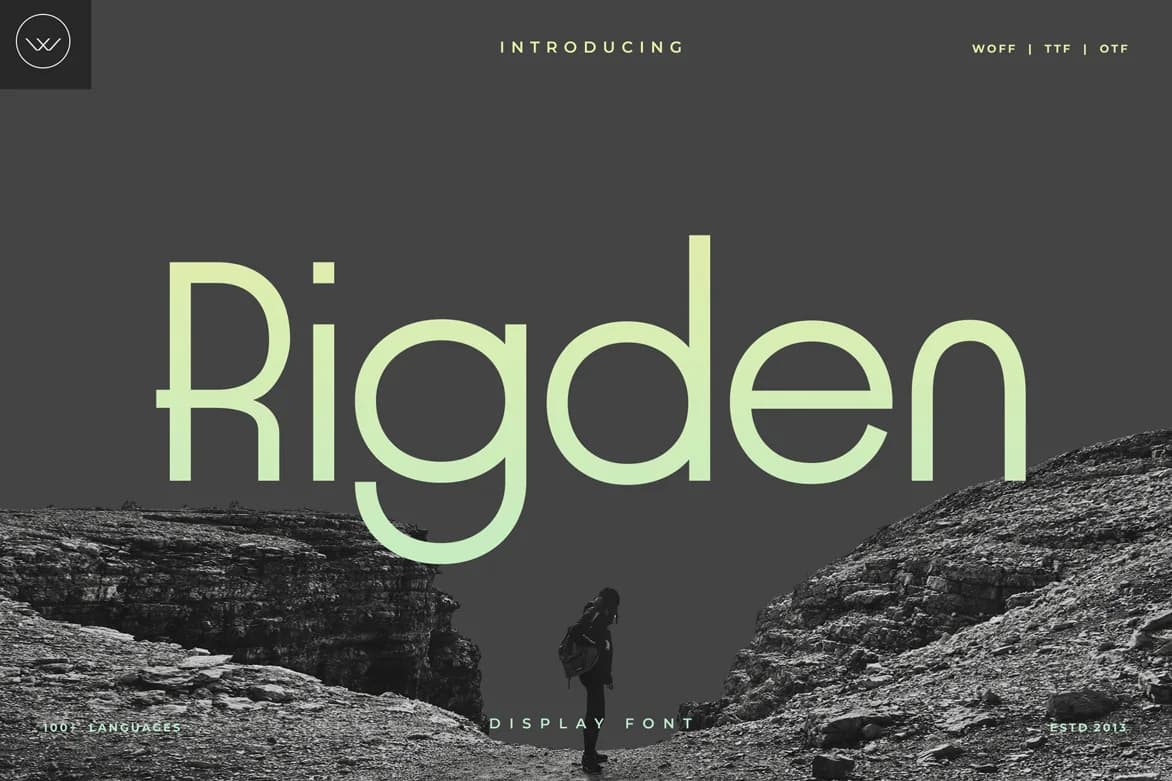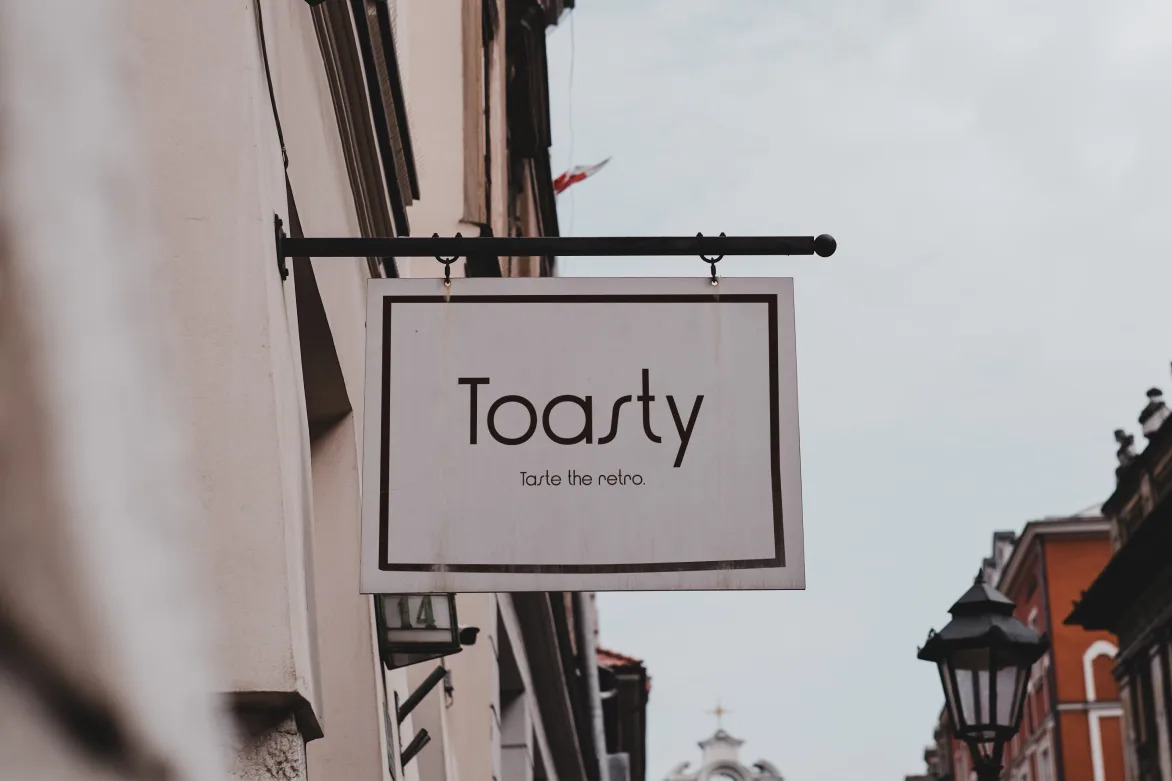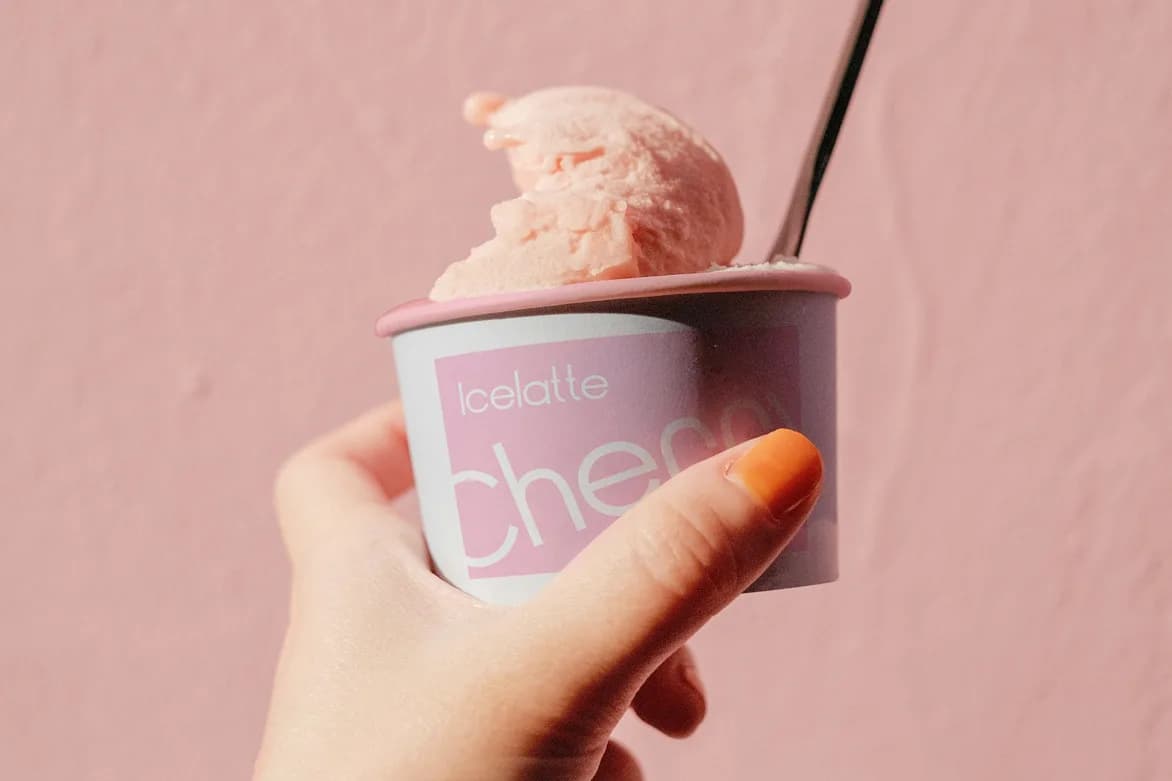
Rigden
0Rigden is a refined sans-serif font designed for display use, offering both clarity and style. Its geometric construction features carefully considered spacing and kerning, ensuring a balanced look that captures attention without overwhelming. The vintage-inspired elements lend a nostalgic quality, making Rigden an ideal choice for brands looking to evoke a sense of authenticity and heritage.
This font shines in various applications, such as branding and marketing sites, where its clean lines and minimalistic approach can enhance visual communication. It is particularly well-suited for logotypes, allowing businesses to establish a strong visual identity that stands out in crowded markets. Additionally, Rigden's versatility makes it suitable for editorial layouts and poster designs, where it can effectively convey messages with a modern yet classic flair.
Rigden supports Latin scripts, making it accessible for a wide audience. Its unique character and design intent position it as a go-to choice for graphic designers aiming to create impactful visuals in both web and print formats. Whether used in social media posts, stickers, or as a headline font, Rigden’s distinctive style ensures that it leaves a lasting impression.